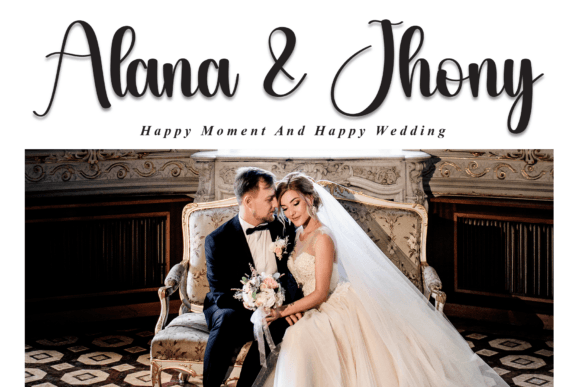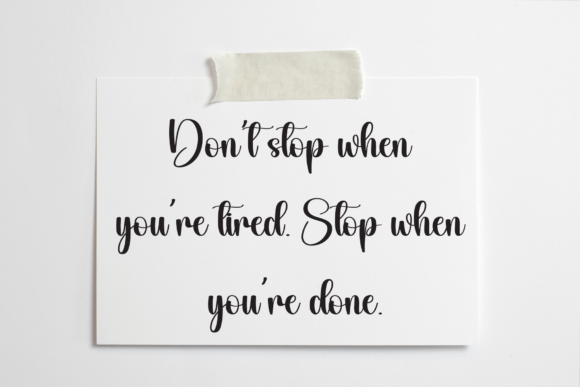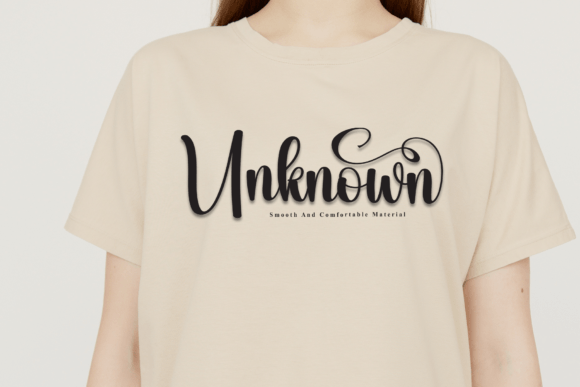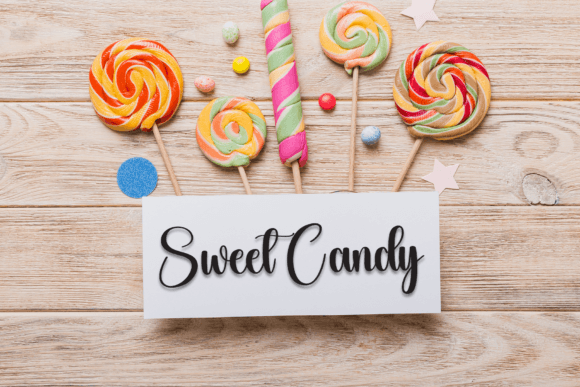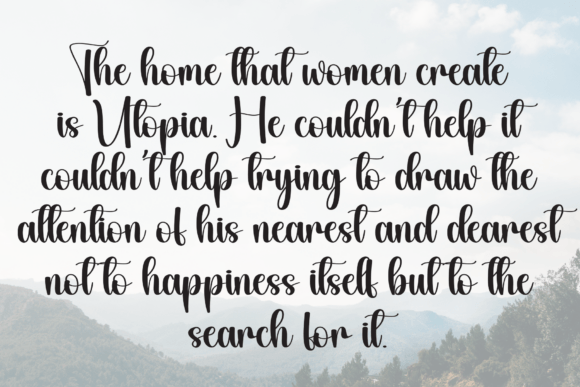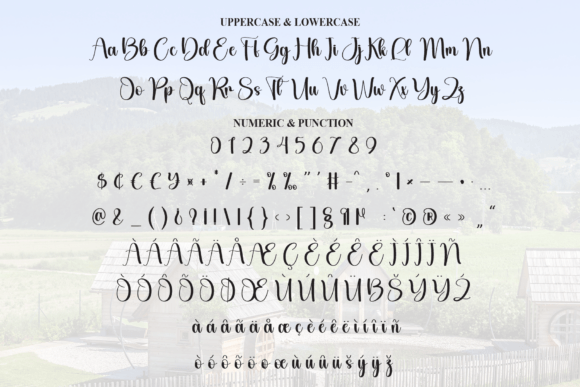
Introducing Farmhouse Font: A Charming Script Font for Rustic Designs
Are you looking for a font that can add a touch of warmth and coziness to your designs? Look no further than Farmhouse Font, a charming script font that features smooth, flowing letters with a rustic, hand-crafted feel. In this article, we’ll explore the characteristics of Farmhouse Font, its uses, and why it’s perfect for designers and crafters who want to create unique and eye-catching designs.
Farmhouse Font is a script font that is designed to evoke the feeling of a rustic, countryside charm. Its smooth, flowing letters are reminiscent of hand-crafted signs and invitations, making it perfect for designs that require a personal touch. The font features a distinctive, hand-drawn feel that sets it apart from more traditional fonts.
Characteristics of Farmhouse Font
Farmhouse Font has several characteristics that make it stand out from other fonts. Some of its key features include:
- Smooth, flowing letters: Farmhouse Font features smooth, connected letters that give it a fluid, hand-crafted feel.
- Rustic, hand-crafted feel: The font has a distinctive, hand-drawn feel that gives it a rustic, countryside charm.
- Cozy, warm tone: Farmhouse Font is perfect for designs that require a cozy, warm tone, such as invitations, logos, and signage.
- Highly legible: Despite its hand-crafted feel, Farmhouse Font is highly legible, making it perfect for use in a variety of designs.
Uses for Farmhouse Font
Farmhouse Font is a versatile font that can be used in a variety of designs, including:
- Invitations: Farmhouse Font is perfect for invitations, such as wedding invitations, birthday invitations, and baby shower invitations.
- Logos: The font can be used to create unique and eye-catching logos for businesses, such as restaurants, cafes, and boutiques.
- Signage: Farmhouse Font is perfect for signage, such as store signs, directional signs, and menu boards.
- Crafting and DIY projects: The font can be used in crafting and DIY projects, such as scrapbooking, card making, and paper crafting.
Why Choose Farmhouse Font?
There are several reasons why designers and crafters might choose Farmhouse Font for their projects. Some of the benefits of using Farmhouse Font include:
- Unique and eye-catching: Farmhouse Font is a unique and eye-catching font that can help designers and crafters stand out from the crowd.
- High-quality: Farmhouse Font is a high-quality font that is designed to produce crisp, clear results.
Here are a few tips for using Farmhouse Font in your designs:
- Use it sparingly: Farmhouse Font is a bold font, so it’s best to use it sparingly to avoid overwhelming the design.
- Pair it with other fonts: The font can be paired with other fonts to create a unique and eye-catching design.
- Experiment with colors: Farmhouse Font looks great in a variety of colors, so don’t be afraid to experiment and find the perfect color for your design.
Farmhouse Font is a charming script font that is perfect for designers and crafters who want to add a touch of warmth and coziness to their designs. With its smooth, flowing letters and rustic, hand-crafted feel, it’s a great choice for a variety of projects, from invitations and logos to signage and crafting projects. Whether you’re a professional designer or a DIY crafter, Farmhouse Font is a great addition to any design toolkit.